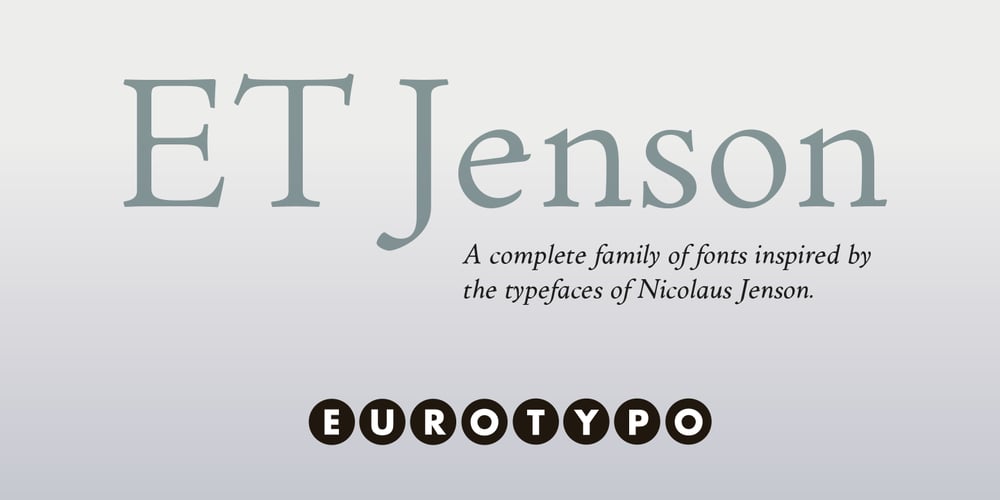
ET Jenson Font Family was designed by Olcar Alcaide and published by Eurotypo. ET Jenson contains 14 styles and family package options. Nicolaus Jenson, 1470. He was one of the first typographers of the Italian Renaissance established in Venice. His work served as the basis for typographers such as Claude Garamond (1550), William Morris (1890), Bruce Roger (1891) among others.We wanted to pay our humble tribute to his brilliant work by designing this family of fonts. “ET Jenson” comes with six weights and a condensed version, each with its corresponding true italic styles.